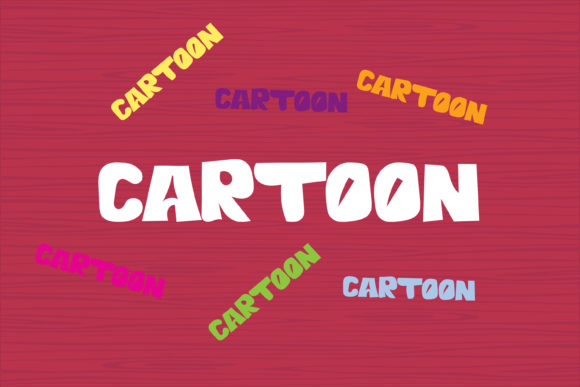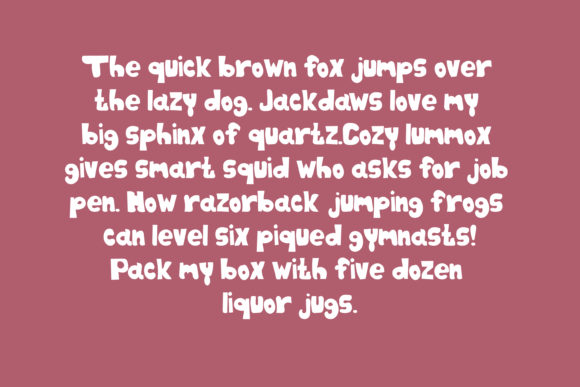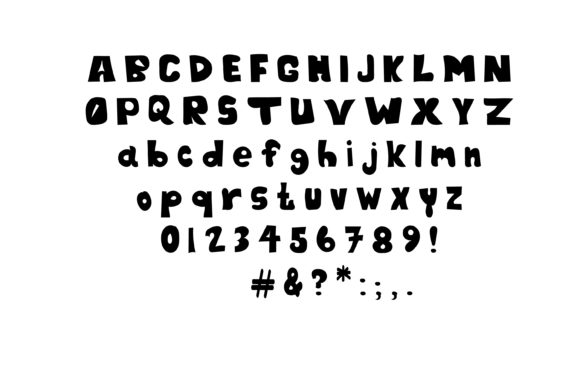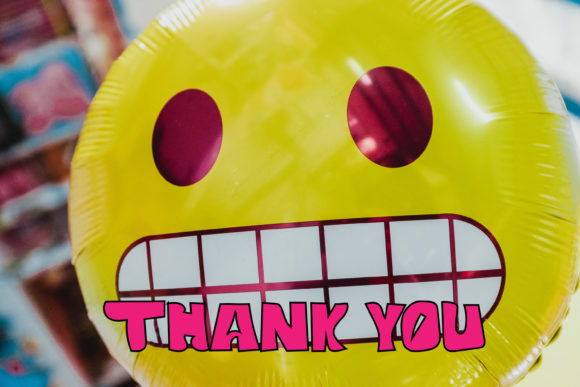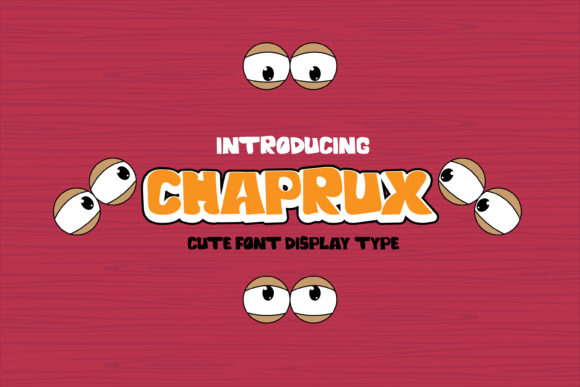
Introducing Chaprux Font: The Ultimate Choice for Fun and Playful Designs
Are you a designer or crafter looking for a font that can add a touch of fun and playfulness to your designs? Look no further than Chaprux Font! This cool, thick lettered, and friendly display font is perfect for children-themed designs, especially when combined with bright colors. In this article, we’ll take a closer look at Chaprux Font, its features, and how you can use it to create engaging and visually appealing designs.
What is Chaprux Font?
Chaprux Font is a display font designed to make a statement. Its thick letters and friendly vibe make it perfect for designs that require a playful touch. The font is highly legible, even at large sizes, making it ideal for headlines, titles, and other display text. Whether you’re designing a children’s book, a kids’ website, or a craft project, Chaprux Font is sure to add a pop of fun and personality to your work.
Key Features of Chaprux Font
- Thick and bold letters: Chaprux Font features thick and bold letters that are perfect for creating eye-catching designs.
- Friendliness and approachability: The font has a friendly and approachable vibe, making it perfect for children’s designs and other applications where a playful tone is desired.
- High legibility: Chaprux Font is highly legible, even at large sizes, making it ideal for headlines, titles, and other display text.
- Versatility: The font is versatile and can be used for a wide range of design projects, from children’s books to craft projects.
Use Cases for Chaprux Font
Chaprux Font is perfect for a wide range of design projects, including:
- Children’s books and educational materials: The font’s playful and friendly vibe makes it perfect for children’s books, educational materials, and other kid-friendly designs.
- Kids’ websites and apps: Chaprux Font is ideal for kids’ websites and apps, where a fun and playful tone is essential.
- Craft projects: The font is perfect for craft projects, such as DIY tutorials, patterns, and other handmade designs.
- Signs and posters: Chaprux Font can be used to create eye-catching signs and posters for kids’ events, parties, and other activities.
Tips for Using Chaprux Font
Here are some tips for using Chaprux Font in your designs:
- Combine with bright colors: Chaprux Font looks best when paired with bright and bold colors. Try combining it with colors like pink, blue, yellow, and green to create a fun and playful design.
- Use it for headlines and titles: The font is perfect for headlines and titles, where a bold and playful font is needed.
- Experiment with different sizes: Chaprux Font is highly legible, even at large sizes. Experiment with different sizes to create visual interest and hierarchy in your design.
- Pair it with other fonts: Try pairing Chaprux Font with other fonts to create a unique and visually appealing design.
| Font Name | Chaprux Font |
| Author | CacingTanahDesign |
Chaprux Font is a fun and playful display font that’s perfect for children’s designs and other applications where a bold and friendly tone is desired. With its thick letters, friendly vibe, and high legibility, Chaprux Font is sure to add a pop of fun and personality to your designs. Whether you’re a designer or crafter, Chaprux Font is a great choice for your next project.